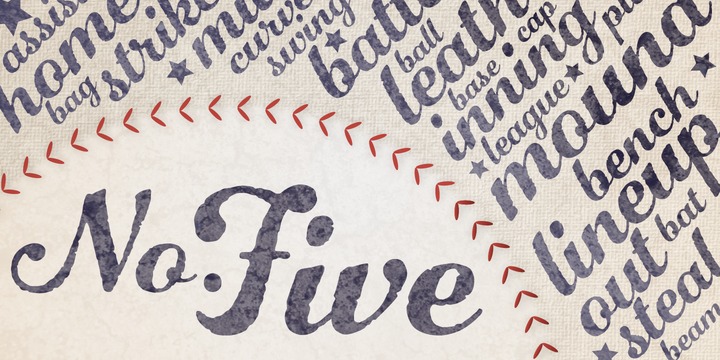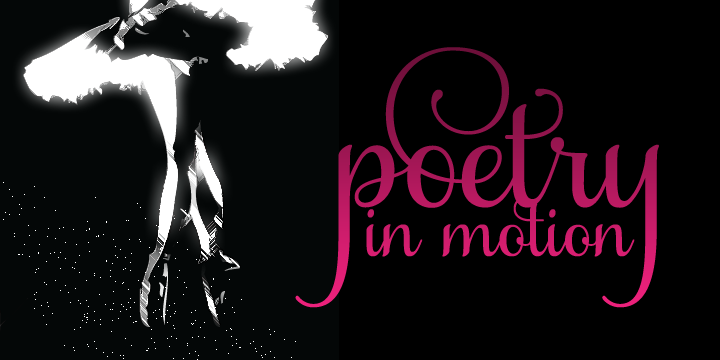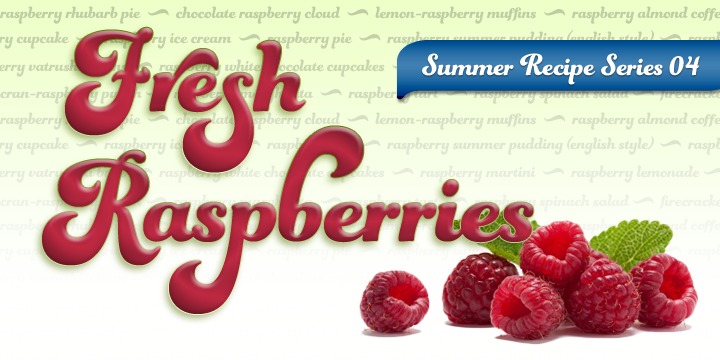
congenial
congenial font
Congenial font is a sans-serif typeface built as understated, highly legible complement to Laura Worthington. Congenial retains some hand-drawn elements, visible particularly in the heavier weights . At lighter weights the strokes become almost monoline. Download Congenial font details Publisher: Laura Worthington Released: May 21, 2015 Price: $39.50
Alana Pro
Alana Pro font
Alana Pro can be referred to as a natural looking, semi-connected script face. This is based on hand lettering and a very friendly font. It is capable of imparting a beautiful transition from casual to formal. It also holds its original hand drawn, slightly rough look and feel. The font also features about 341 alternates … Read more
Samantha
Samantha font
Samantha font lettering was initially designed with emphasis on diversity, flexibility, exquisiteness and expediency. With calculated tempo and complementary, allied strokes, Samantha holds a flowingly even grace with the aptitude to employ scores of appearances. Right from simple styling to the fanciest of all flourishes with its incredible 2700+ glyphs, the font offers you a lot. You … Read more
Funkydori
Funkydori font
Funkydori  is rocking font and  is simply astonishing. It can also be referred to as the ornamental font that decorates text imparts a groovy and fervent spirit to any writing project. Funkydori comes equipped with 213 alternates. For those looking for a variety in their script work, the font offers about 13 discretionary ligatures and 38 … Read more
Number Five
Number Five is a chaste Americana typeface ideally suitable for purposes like display, titling, logo, signage, and editorial jobs. The amazing versions of the font; Smooth and Rough, are engineered in a similar manner yet instilled with distinct feelings as well as uses. The marvel of Number Five captures the moments prior to moving into … Read more
Mandevilla
Mandevilla is the original creation of this font was based on the idea of generating a font for display, titling, and logos. Later, the originator’s exploration as well as drawing of forms available in nature inspired this font. This eye catching, refined, elegant, yet quirky font is an ideal choice for employing slim filaments. The attractive … Read more